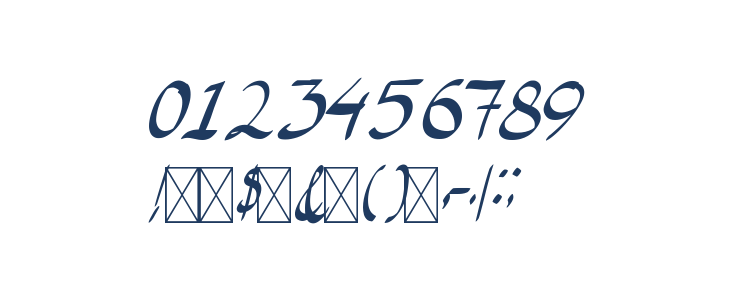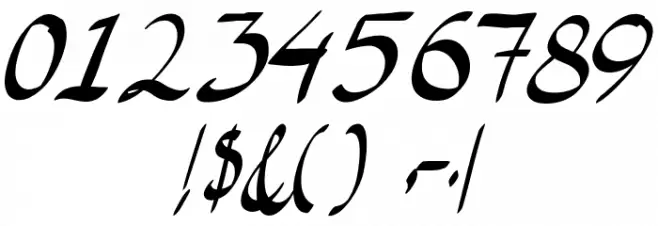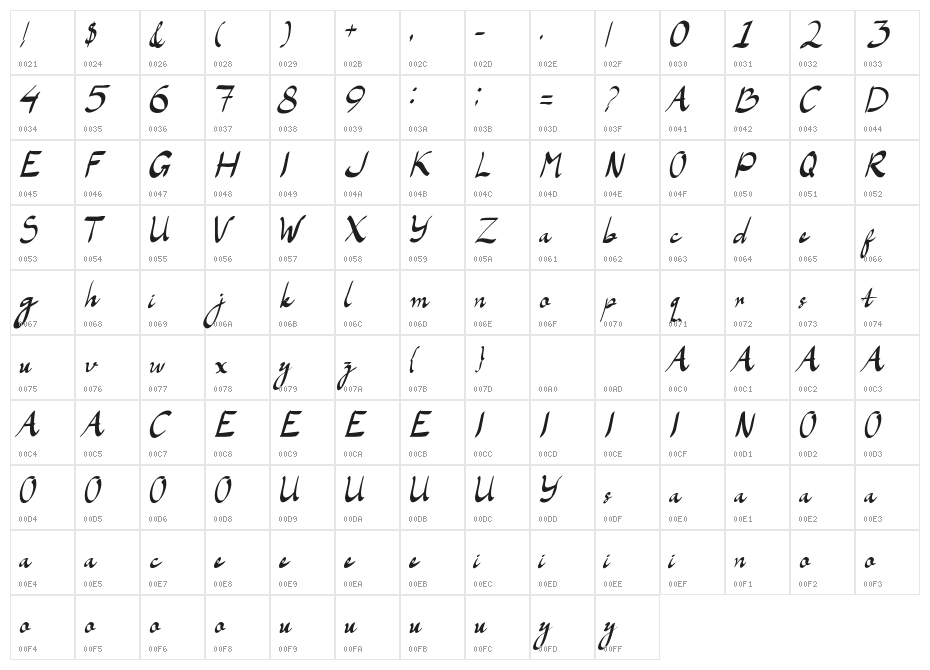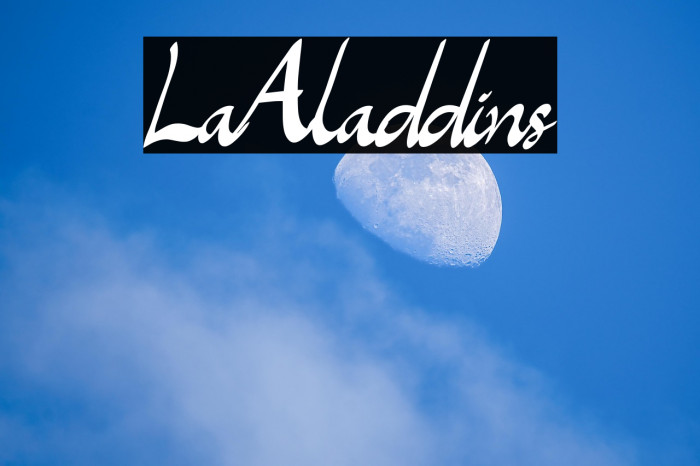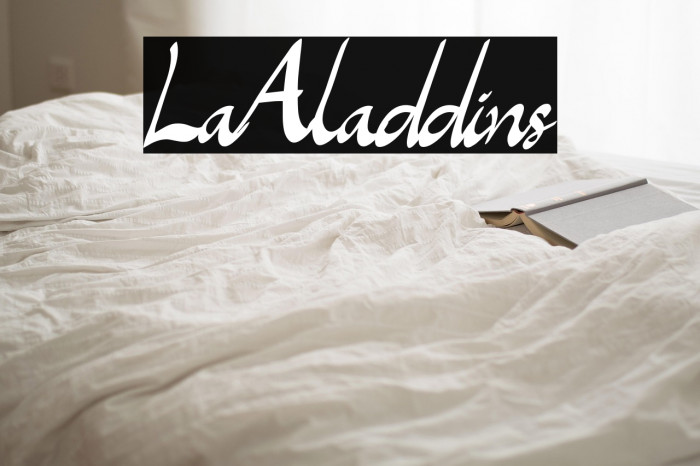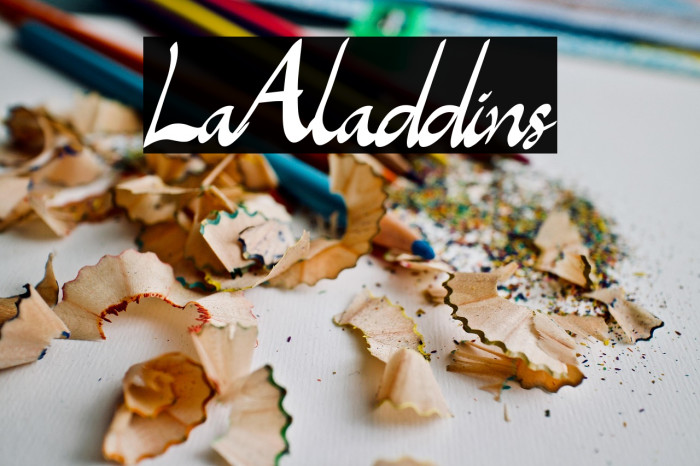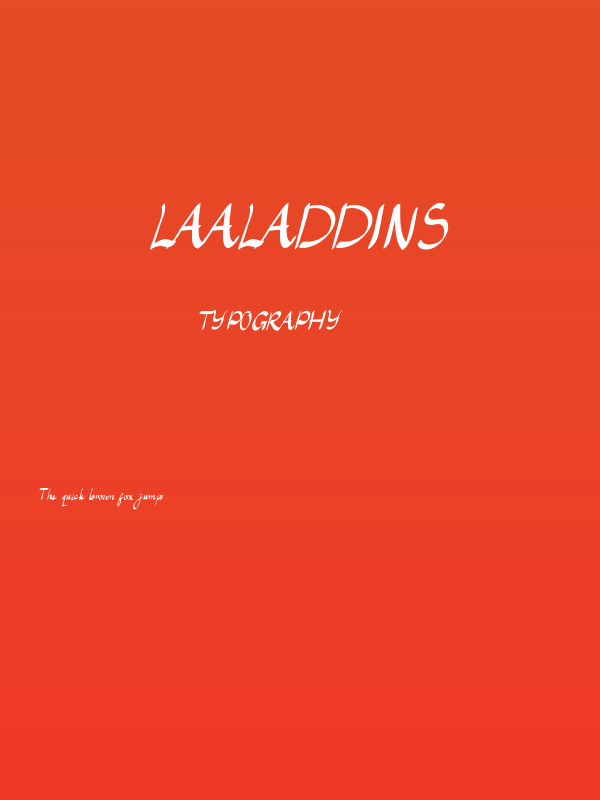
LaAladdins Font
LaAladdins Description
This font features a dynamic and flowing script style, characterized by its elegant and fluid strokes. The uppercase letters exhibit a bold and slightly slanted appearance, while the lowercase letters maintain a consistent cursive form, enhancing the overall graceful aesthetic. The numerals are distinct and maintain the script's fluidity, ensuring readability. Special characters are seamlessly integrated, complementing the font's cohesive design. The font's artistic flair makes it suitable for creative and expressive projects.
Use CaseLogos, Invitations, Artistic Branding
Proposed ProjectsIdeal for wedding invitations, greeting cards, logos, and artistic branding projects.